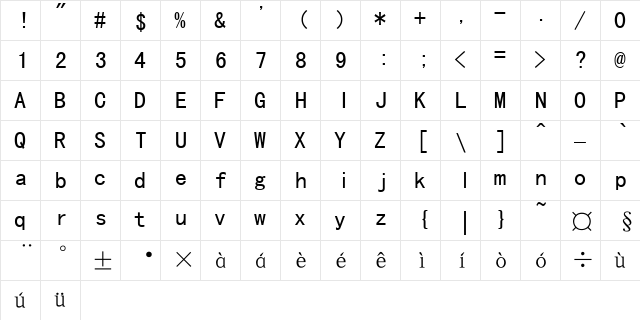
SimHei Regular
Design Context for SimHei Typeface
SimHei is a composed and adaptable typeface that performs quietly and consistently across a wide range of design contexts.